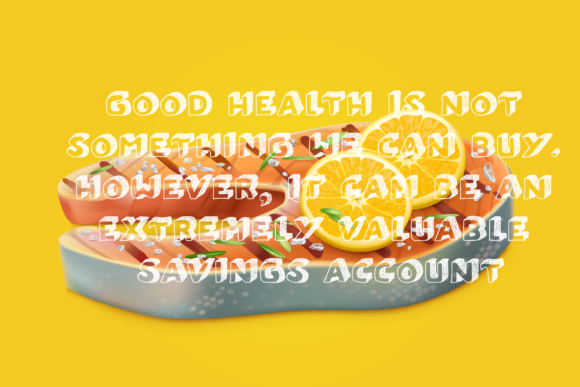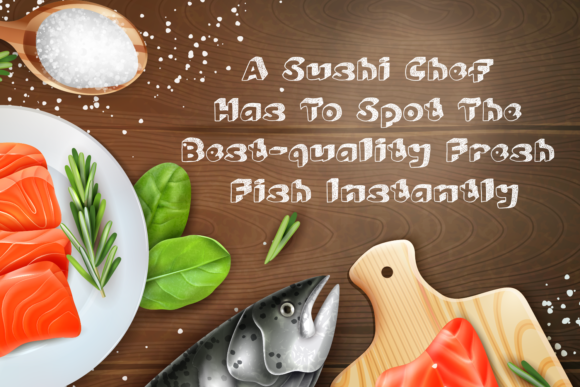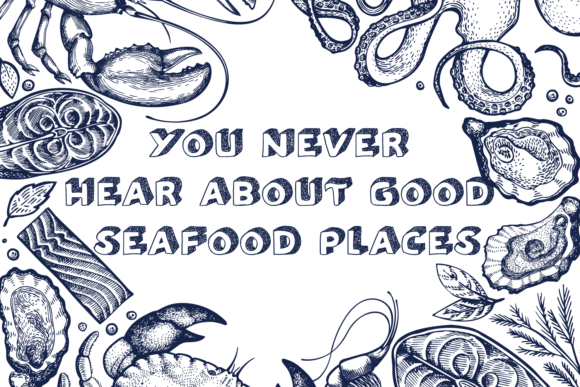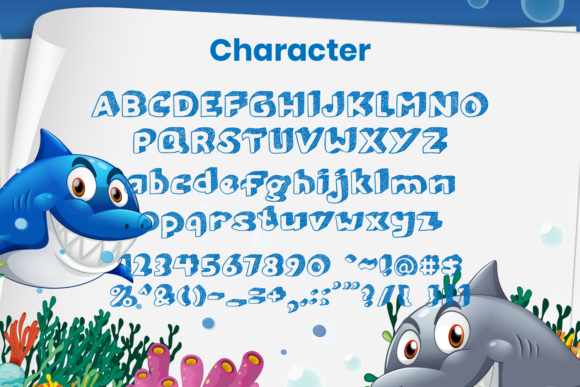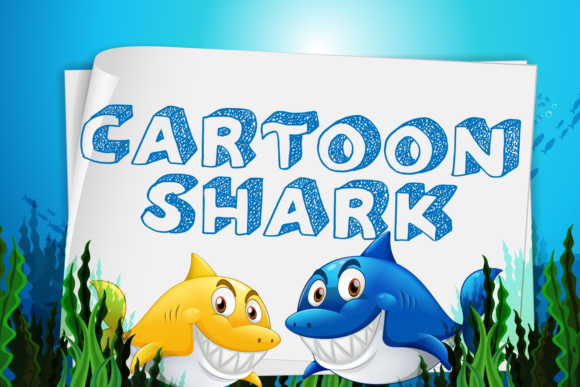
Introducing Cartoon Shark Font: The Perfect Addition to Your Design Arsenal
Are you a designer, crafter, or simply a creative individual looking for a font that can add a touch of playfulness and whimsy to your projects? Look no further than Cartoon Shark Font! This delightful display font is designed to bring a smile to your face and a dash of fun to your designs.
What is Cartoon Shark Font?
Cartoon Shark Font is a cute, jolly, and bubbly display font that is perfect for a wide range of creative projects. Whether you’re working on a cartoon-related design, creating a children’s game, or simply looking for a font that can add a lovely touch to your artwork, Cartoon Shark Font is an amazing choice.
Key Features of Cartoon Shark Font
- Cute and Playful Design: Cartoon Shark Font features a unique and adorable design that is sure to capture the attention of your audience.
- Display Font: This font is specifically designed as a display font, making it perfect for headlines, titles, and other prominent text elements.
- Easy to Read: Despite its playful design, Cartoon Shark Font is easy to read and understand, making it suitable for a wide range of applications.
- Versatile: This font can be used for a variety of projects, from cartoon-related designs to children’s games, and even for personal creations that require a touch of whimsy.
Why Choose Cartoon Shark Font?
So, why should you choose Cartoon Shark Font for your next project? Here are just a few reasons:
- Adds a Touch of Whimsy: Cartoon Shark Font is designed to add a touch of playfulness and whimsy to your designs, making it perfect for projects that require a bit of fun and personality.
- Perfect for Children’s Projects: The cute and playful design of Cartoon Shark Font makes it an excellent choice for children’s projects, such as games, books, and educational materials.
- Great for Cartoon-Related Designs: If you’re working on a cartoon-related project, Cartoon Shark Font is a great choice. Its playful design is sure to fit right in with your cartoon characters and storylines.
How to Use Cartoon Shark Font
Using Cartoon Shark Font is easy! Here are a few tips to get you started:
- Pair it with Other Fonts: Cartoon Shark Font pairs well with other fonts, so feel free to experiment with different combinations to find the perfect look for your project.
- Use it for Headlines and Titles: As a display font, Cartoon Shark Font is perfect for headlines and titles. Use it to add a touch of whimsy and personality to your text elements.
- Experiment with Colors and Textures: Cartoon Shark Font looks great in a variety of colors and textures. Don’t be afraid to experiment and find the perfect combination for your project.
In conclusion, Cartoon Shark Font is a fun and playful display font that is perfect for a wide range of creative projects. Its cute and whimsical design makes it an excellent choice for cartoon-related designs, children’s games, and personal creations that require a touch of personality. With its ease of use and versatility, Cartoon Shark Font is a great addition to any designer’s or crafter’s arsenal.
Get Ready to Make a Splash with Cartoon Shark Font!
So, what are you waiting for? Dive into the world of Cartoon Shark Font and discover the endless possibilities it has to offer. Whether you’re a seasoned designer or a crafty individual, Cartoon Shark Font is sure to bring a smile to your face and a touch of whimsy to your projects.